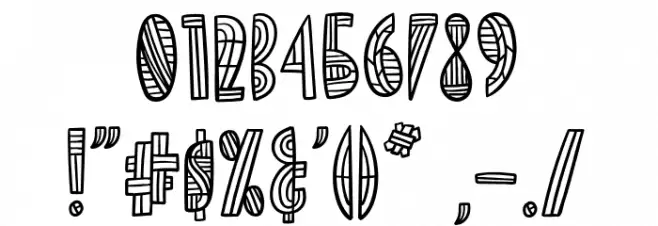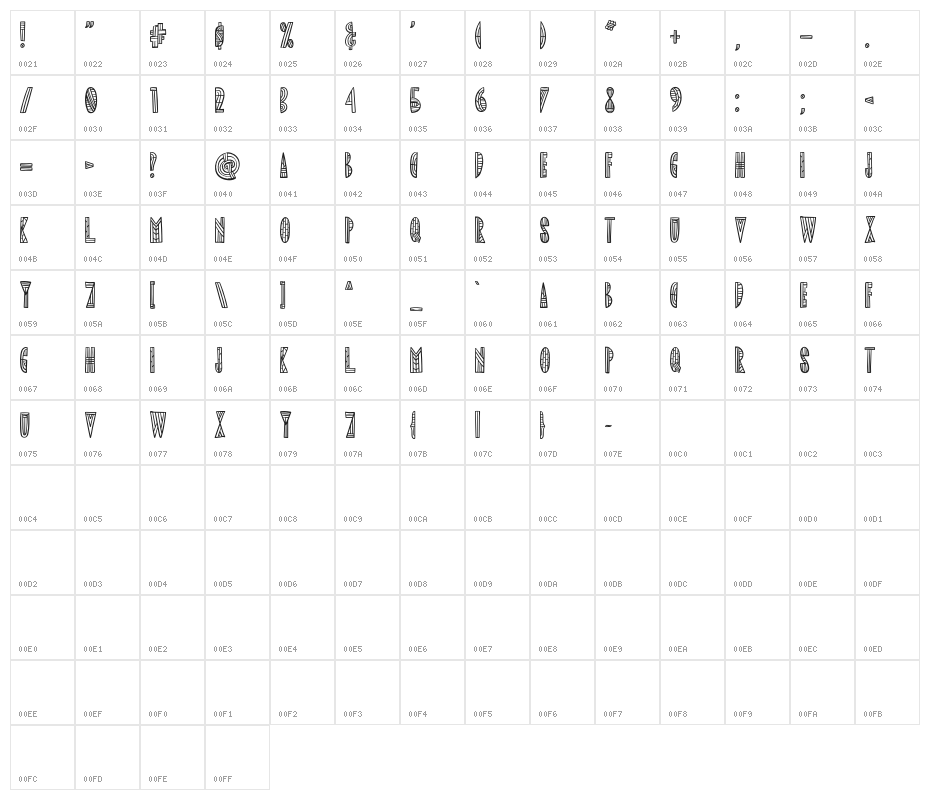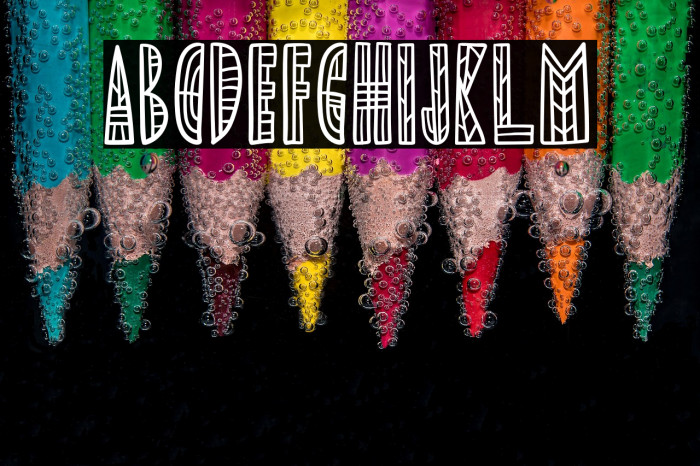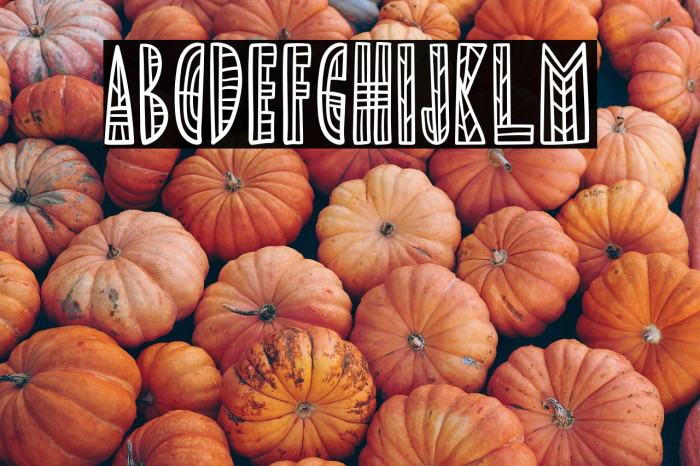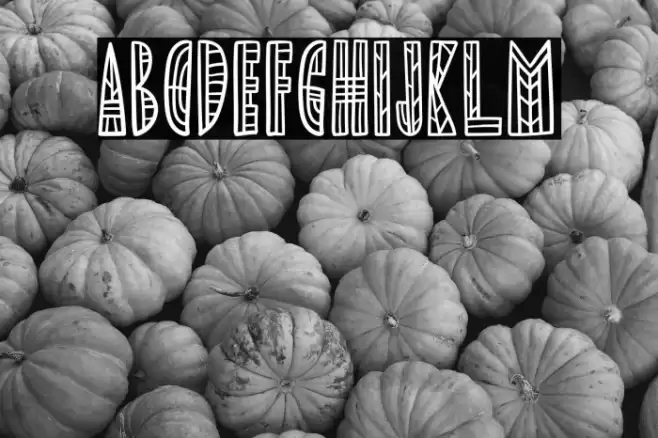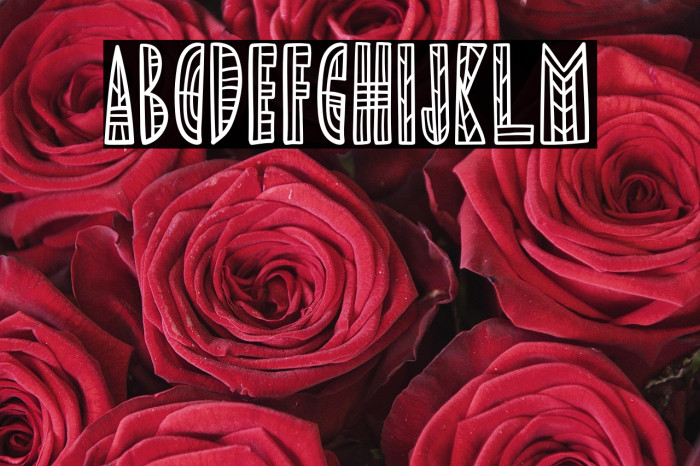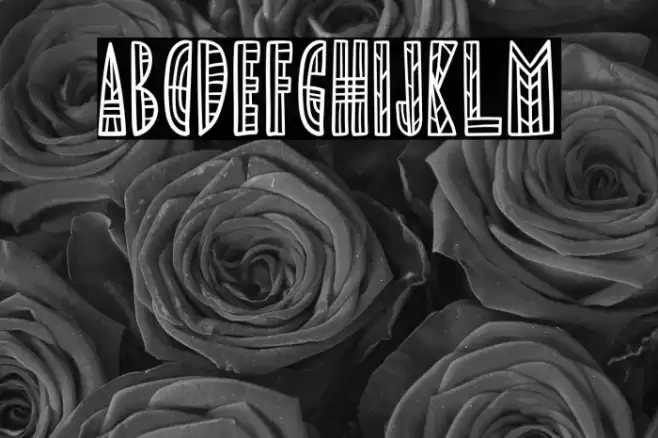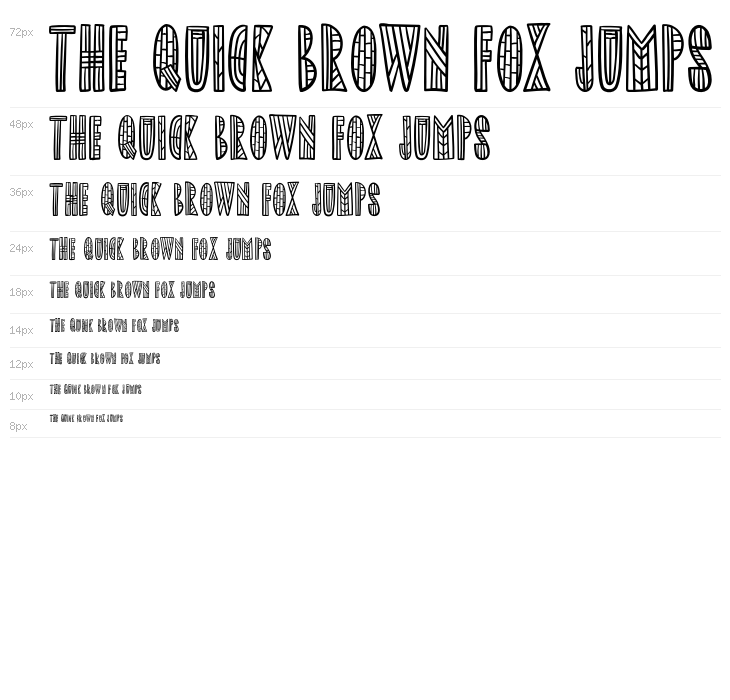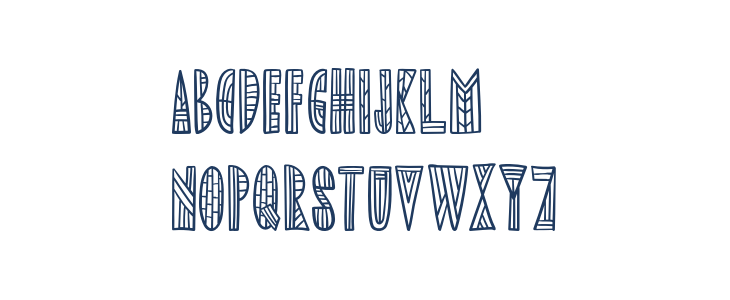
RhefillaFREE Font
RhefillaFREE Description
This font features a bold and decorative style with a unique striped pattern within each character, giving it a playful and artistic appearance. The uppercase and lowercase letters maintain a consistent design, with each character enclosed in a bold outline that enhances its visibility. The numerals and special characters follow the same design principles, ensuring uniformity across the font. The striped pattern within each letter adds a dynamic texture, making it stand out in various design contexts. This font is ideal for projects that require a creative and eye-catching typeface.
| Proposed Projects | Ideal for posters, logos, headlines, and any design needing a creative and eye-catching typeface. |